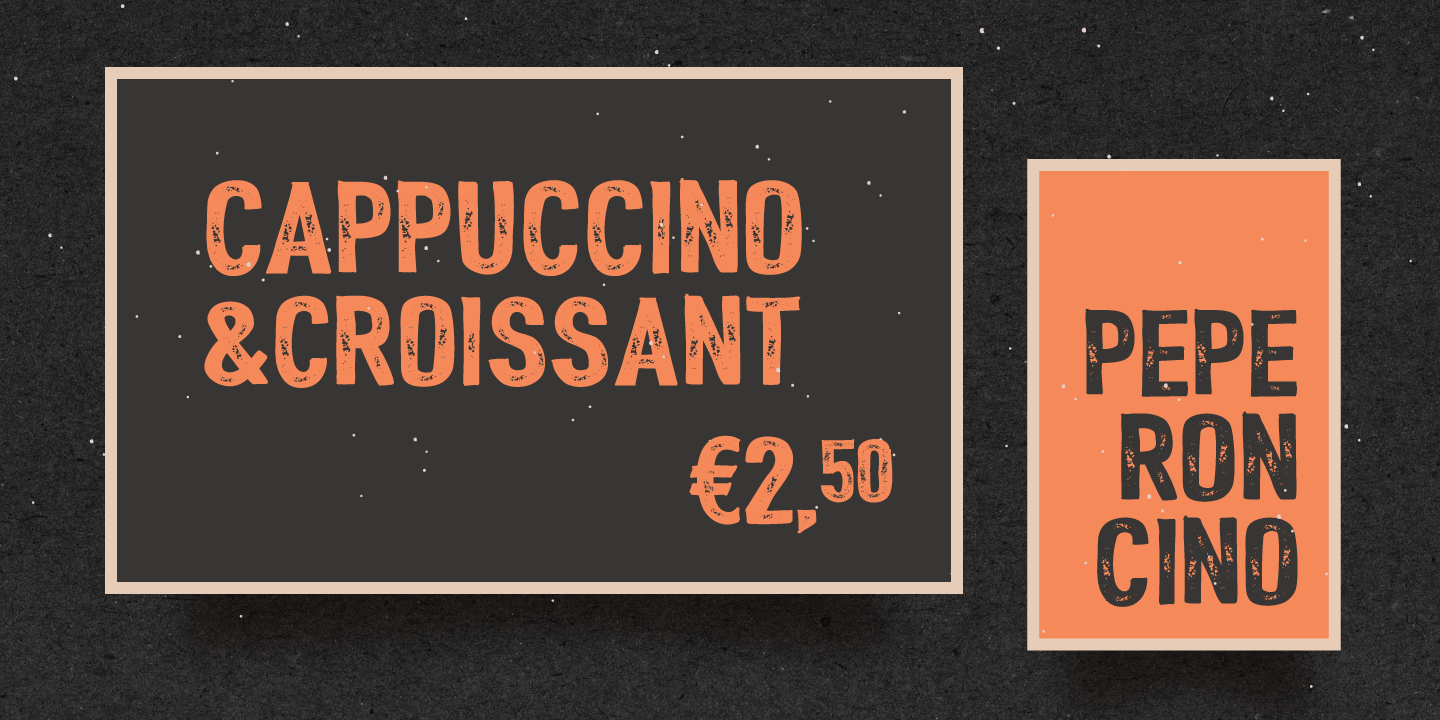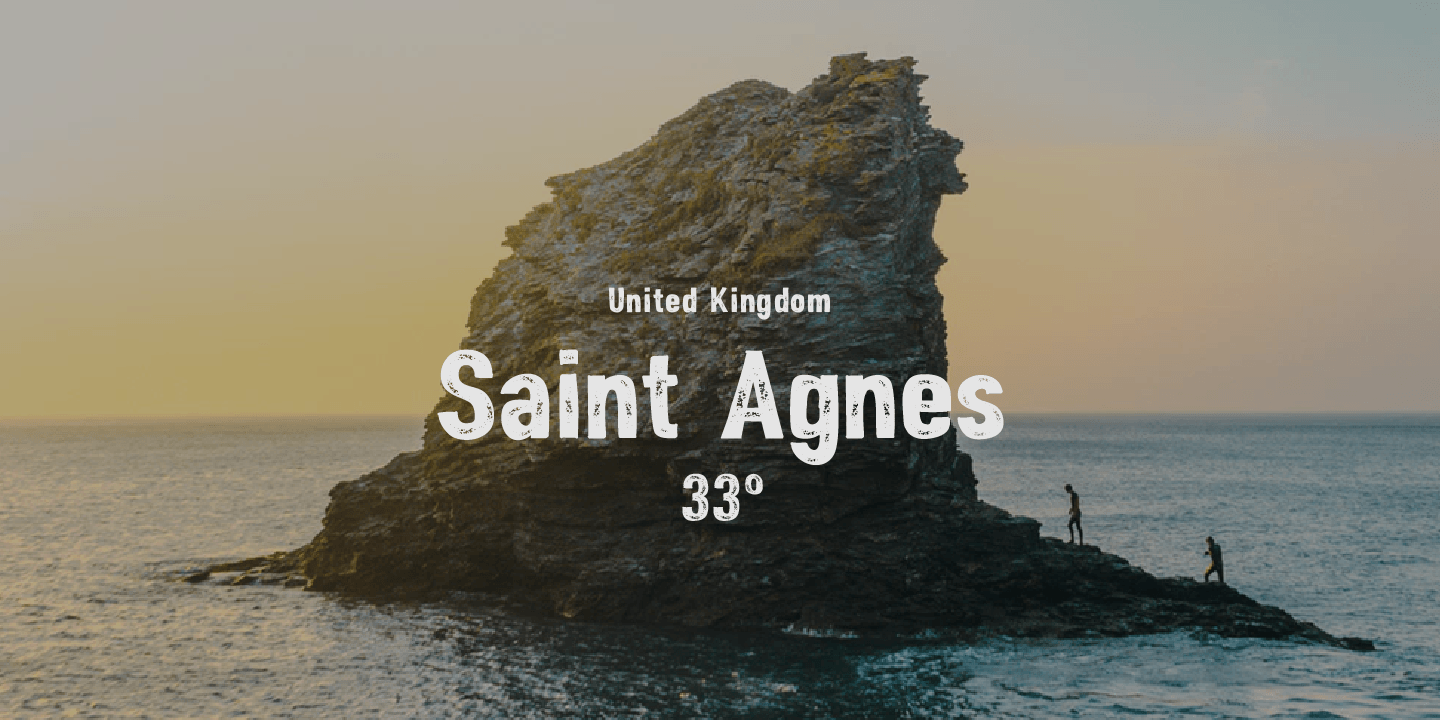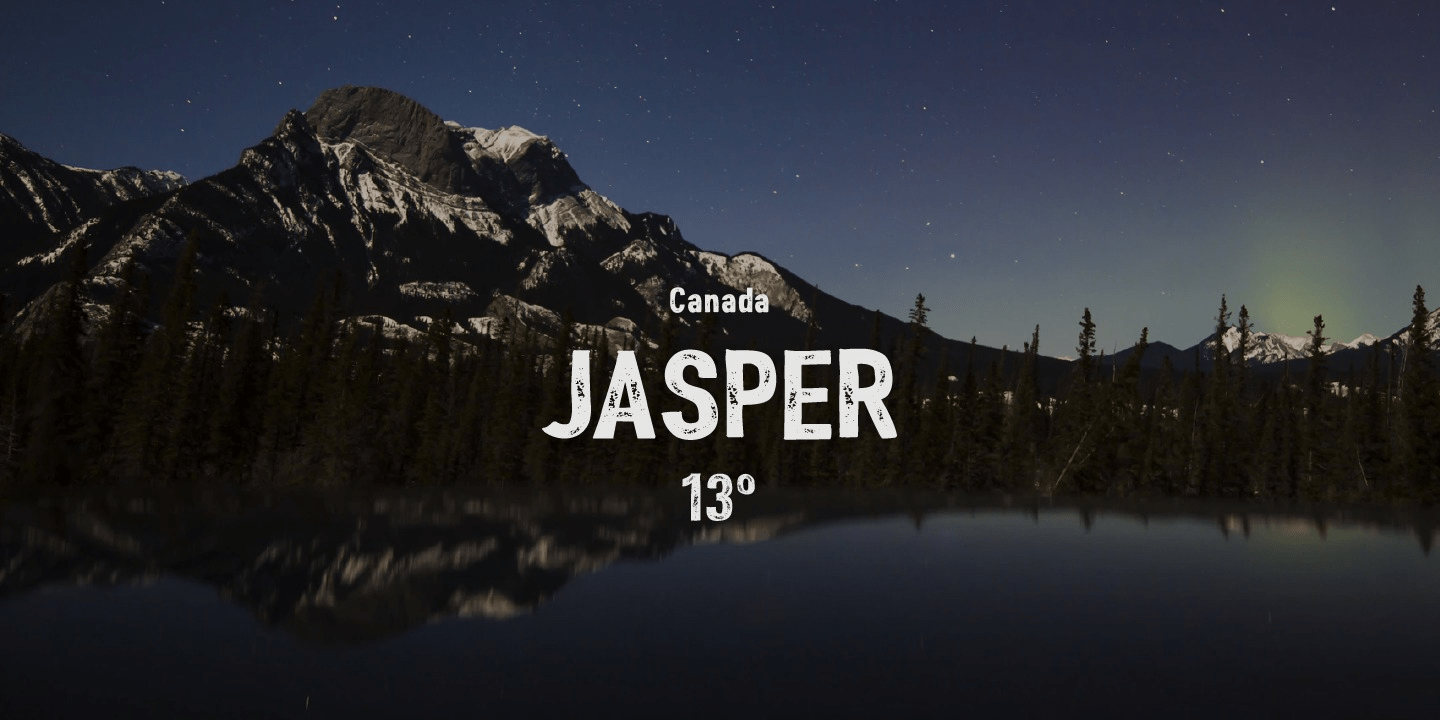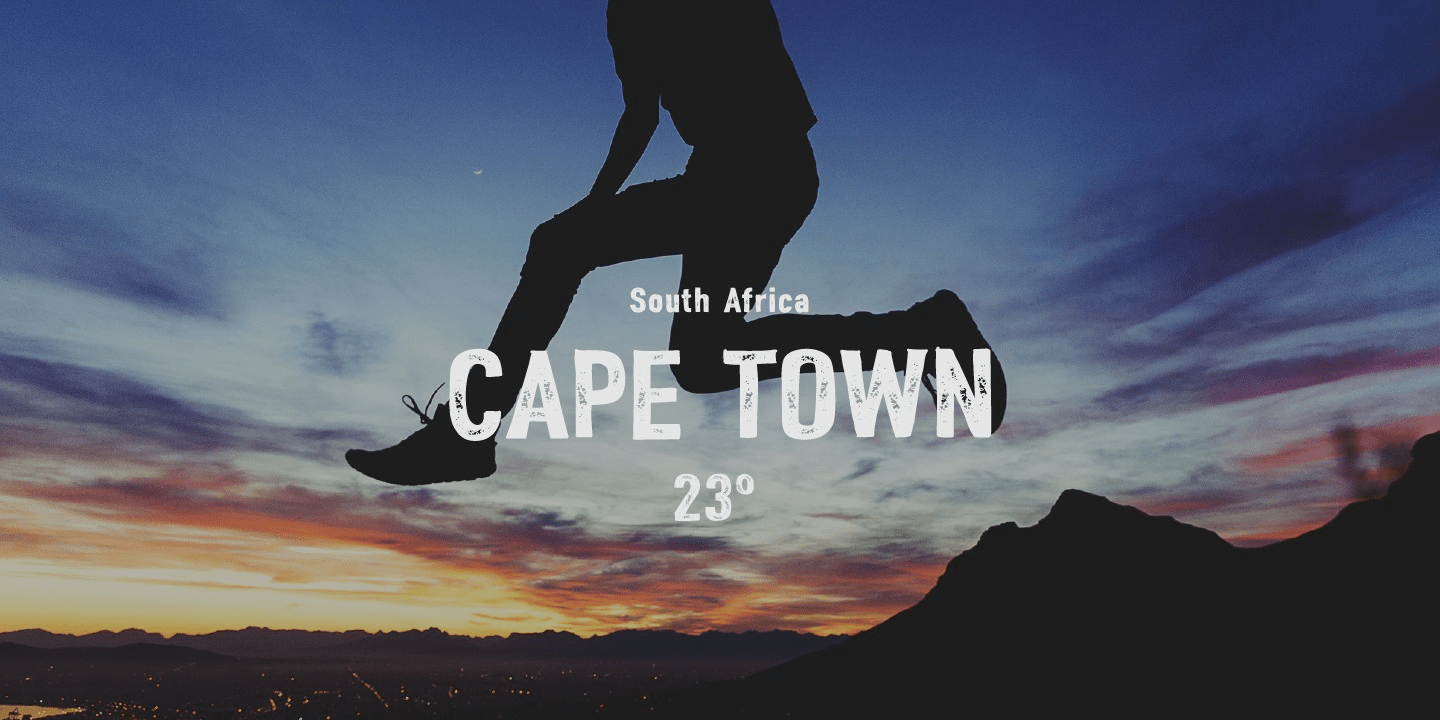
Peperoncino Vintage
About Peperoncino Vintage
Peperoncino is a sans serif font. Designed first with a marker, the irregular strokes create a fresh handmade feeling. After the big success of Peperoncino Family, we create its vintage version adding some ?rusted? elements.